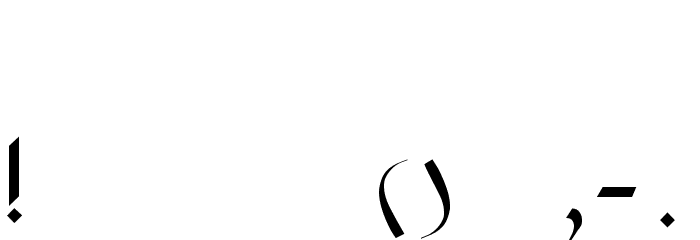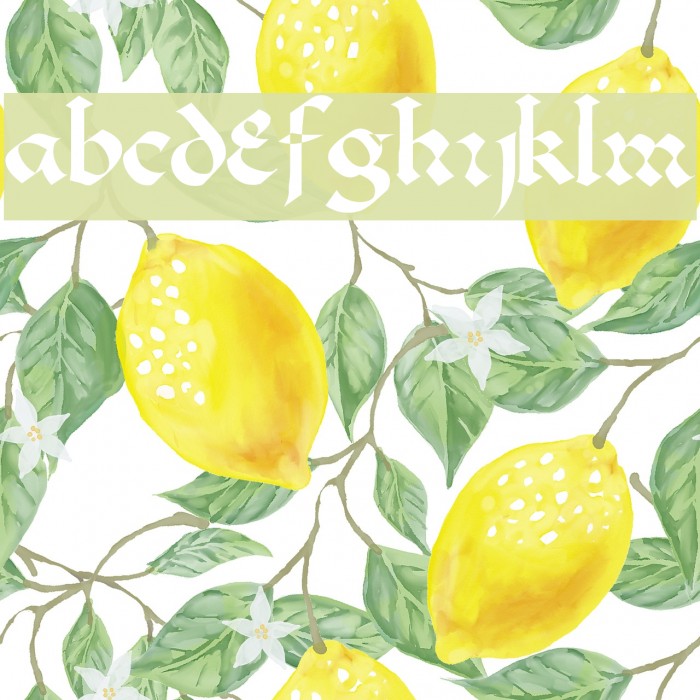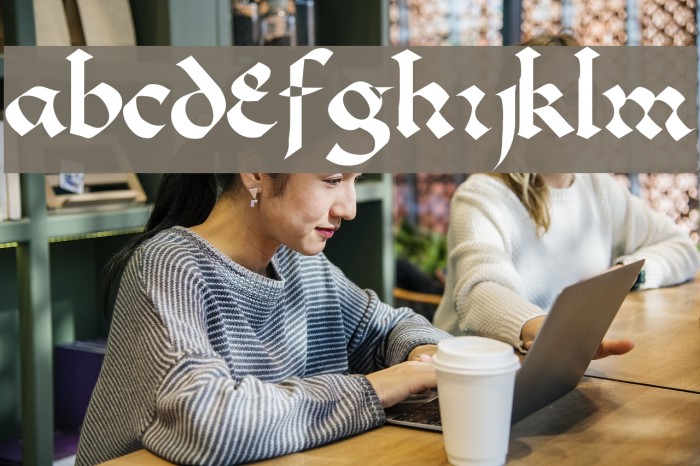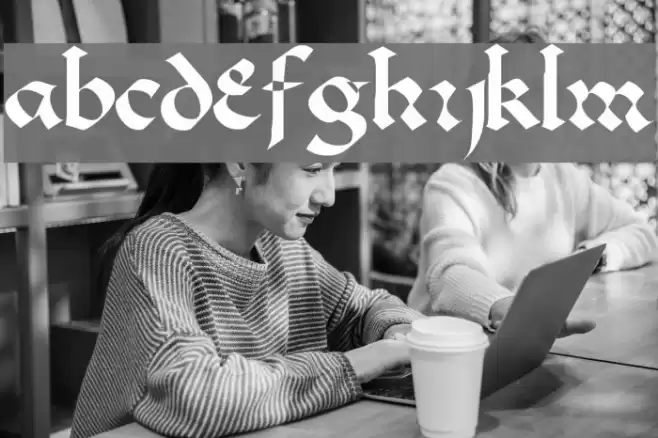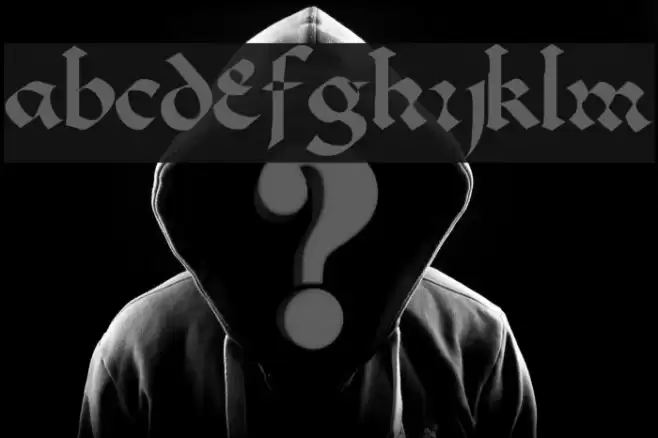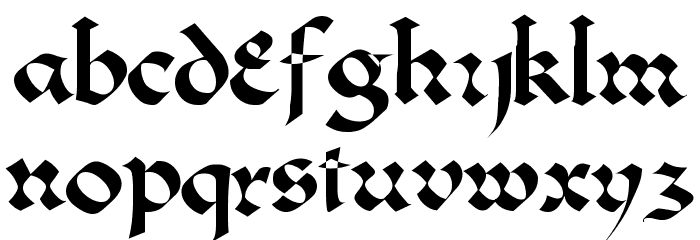
Lombardo Font
Lombardo Description
This font exhibits a traditional blackletter style, characterized by its ornate and angular letterforms. The strokes are bold and pronounced, with sharp edges and intricate details that evoke a sense of historical elegance. The uppercase and lowercase letters maintain a consistent design, with the uppercase letters being slightly more elaborate. The font's overall appearance is reminiscent of medieval manuscripts, making it ideal for projects that require a touch of antiquity and sophistication. The special characters are designed to complement the letterforms, maintaining the same level of detail and style.
Overall StyleVintage
Use CaseLogos, Headlines, Decorative text
Proposed ProjectsSuitable for historical documents, certificates, wedding invitations, and branding that requires a vintage or medieval aesthetic.